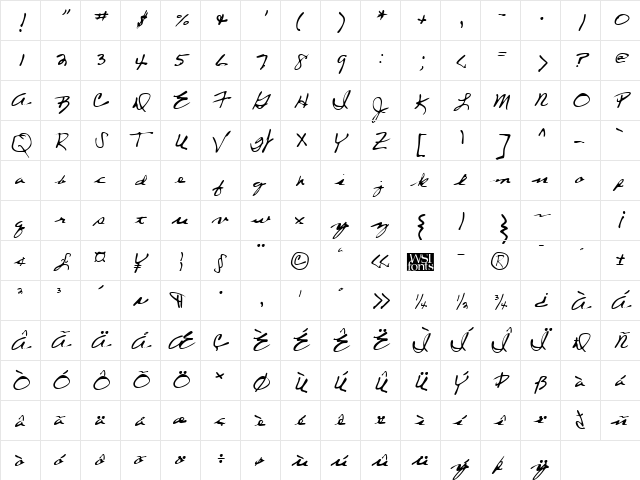
CherylsHand Regular
Design Context for CherylsHand Typeface
CherylsHand flows with the natural rhythm of handwritten lettering, making it ideal for designs that call for warmth and personal expression.
Font Pairing: Combine CherylsHand with a simple geometric sans for maximum contrast — the tension between flowing curves and clean structure is a classic typographic pairing.
Pro Tip: Pair CherylsHand with a clean sans-serif for supporting text. The contrast between fluid script and geometric structure creates an elegant typographic hierarchy.